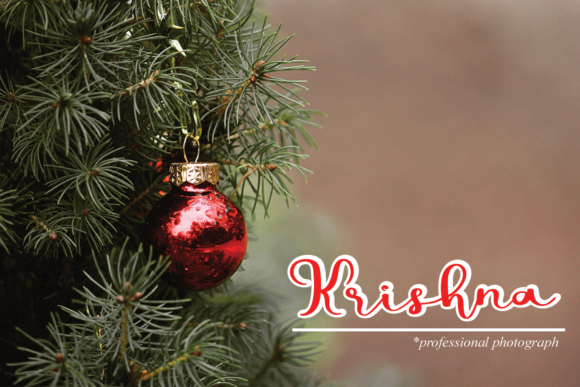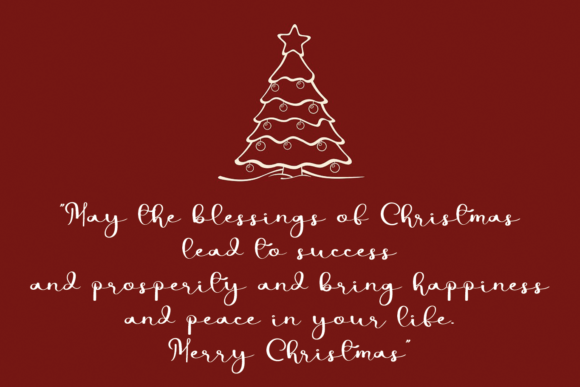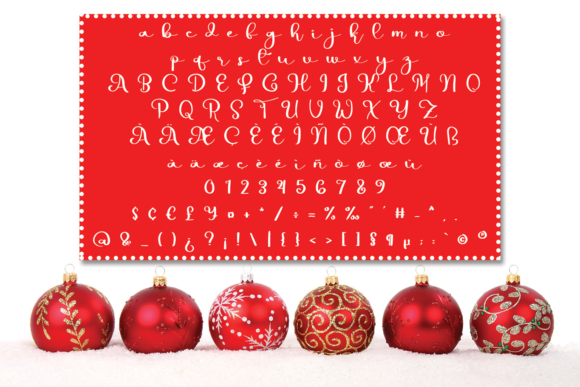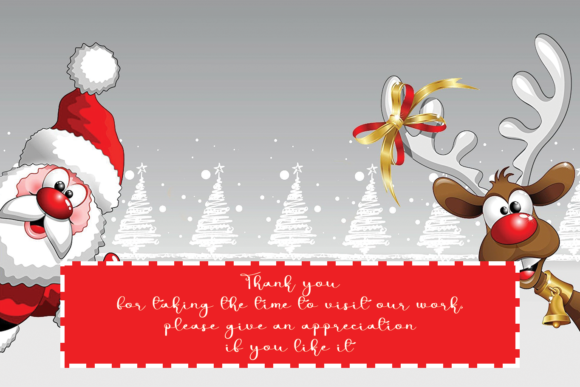
Hello Christmas Font: A Festive Addition to Your Typography Collection
As the holiday season approaches, designers and crafters are on the lookout for typography that captures the essence of Christmas. If you’re searching for a font that exudes festivity and style, look no further than the Hello Christmas font. This fashionable script font is a wonderful asset to any font library, and in this article, we’ll explore its features and uses.
What is Hello Christmas Font?
Hello Christmas is a beautifully crafted script font, designed to bring a touch of elegance and sophistication to your designs. With its highly detailed and neat construction, this font is perfect for a wide range of projects, from holiday cards and invitations to festive posters and social media graphics.
Key Features of Hello Christmas Font
- Fashionable Script Style: Hello Christmas boasts a stylish script font that is sure to add a touch of glamour to your designs.
- Highly Detailed and Neat: The font’s intricate details and neat construction make it perfect for use in a variety of projects, from digital to print.
- Versatile: Whether you’re designing for the holiday season or creating a project that requires a touch of elegance, Hello Christmas is a versatile font that can adapt to any topic or theme.
Why Choose Hello Christmas Font?
There are many reasons why Hello Christmas font should be a part of your typography collection. Here are a few:
- Enhance Your Creations: With Hello Christmas, you can add a touch of sophistication and style to your designs, taking them to the next level.
- Save Time: The font’s versatility and ease of use mean you can create stunning designs quickly and efficiently.
- Stand Out from the Crowd: Hello Christmas is a unique and eye-catching font that will help your designs stand out in a crowded marketplace.
Use Cases for Hello Christmas Font
Hello Christmas font is perfect for a wide range of projects, including:
- Holiday Cards and Invitations: Create beautiful and festive holiday cards and invitations that will impress your friends and family.
- Festive Posters and Social Media Graphics: Use Hello Christmas to create eye-catching posters and social media graphics that will help you spread the festive cheer.
- Crafting and DIY Projects: Add a touch of elegance to your crafting and DIY projects, such as handmade gifts, decorations, and more.
Tips for Using Hello Christmas Font
To get the most out of Hello Christmas font, here are a few tips:
- Experiment with Colors and Textures: Try pairing Hello Christmas with different colors and textures to create unique and eye-catching designs.
- Mix and Match with Other Fonts: Combine Hello Christmas with other fonts to create interesting and dynamic typography.
- Pay Attention to Kerning and Spacing: Make sure to adjust the kerning and spacing to ensure that your text is easy to read and visually appealing.
Hello Christmas font is a wonderful addition to any font library, offering a stylish and versatile script font that can enhance any creation. With its highly detailed and neat construction, this font is perfect for a wide range of projects, from holiday cards and invitations to festive posters and social media graphics. Whether you’re a designer or crafter, Hello Christmas is sure to become a favorite in your typography collection.